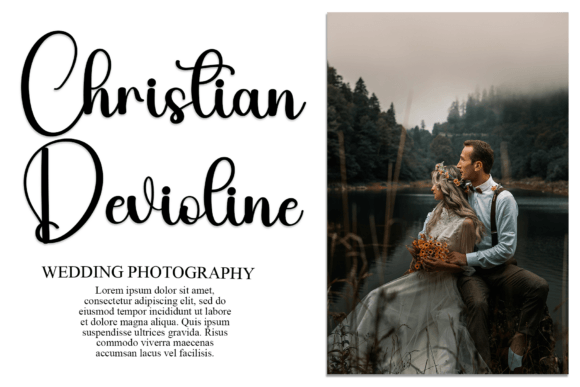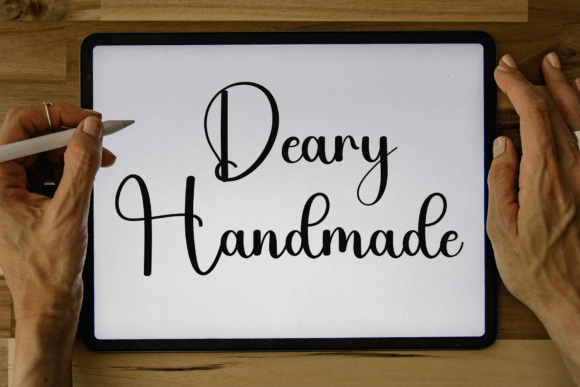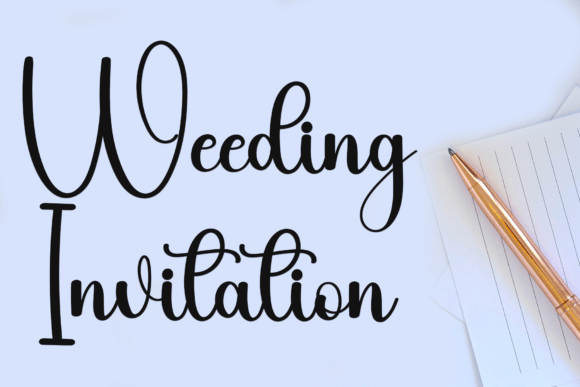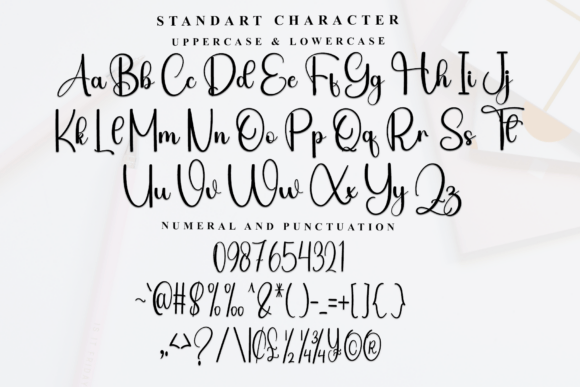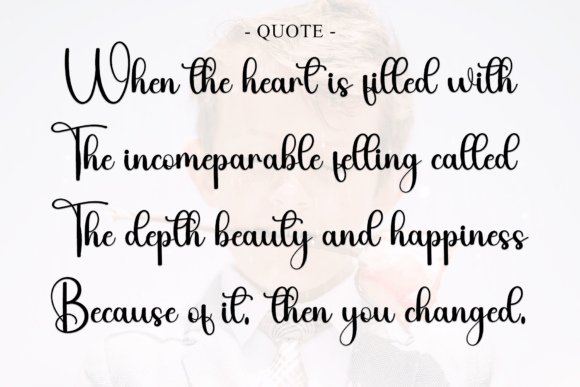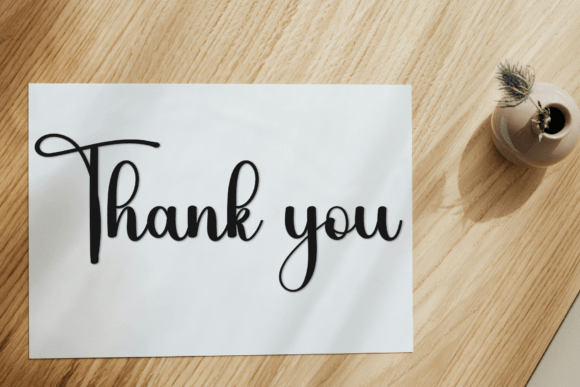
Introduction to Hi Baby Font
As a designer, there’s nothing quite like the thrill of bringing a creative project to life. You’ve poured your heart and soul into it, and you can’t wait to see how it will be received. But sometimes, it’s the little details that make all the difference. That’s where the right font can come in – and for many designers, that font is the Hi Baby Font.
With its playful, handwritten style, the Hi Baby Font is the perfect addition to any design that needs a warm and inviting touch. Its fun, rounded letters are sure to bring a smile to the viewer’s face, making it a valuable resource for designers looking to add some personality to their work.
Key Features of Hi Baby Font
- High quality: This font is designed with high-quality in mind, ensuring crisp and clear typography for any project.
- Unique design: The Hi Baby Font features a unique and playful design, making it perfect for creative projects that require a touch of personality.
- Perfect for creative projects: The font is ideal for use in children’s books, nursery decor, and other creative projects that require a fun and playful touch.
Honest Review: Hi Baby Font
I recently stumbled upon the Hi Baby Font and was excited to give it a try. As a designer, I’m always on the lookout for high-quality design resources to elevate my creative projects. After playing around with the font, I have to say that I’m impressed.
- High-quality design: The font itself is beautifully designed and looks great on a variety of backgrounds.
- Limited character set: The font only includes a limited set of characters, which may not be suitable for all design projects.
- Not suitable for complex text: Due to its cursive nature, this font may not be the best choice for complex text or body copy.
Overall, I’m happy with the Hi Baby Font and would recommend it for designers who need a cute and playful font for their creative projects. It’s a great addition to any design resource collection and is definitely worth checking out.
Tips for Getting the Most Out of Hi Baby Font
For optimal results, use the Hi Baby Font on a high-quality image or a transparent background. Experiment with different font sizes, colors, and styles to find the perfect combination for your creative project.
The Hi Baby Font is perfect for creative projects such as birthday invitations, baby shower decorations, and greeting cards. Its playful and cursive design makes it an ideal choice for any project that requires a touch of elegance and whimsy.